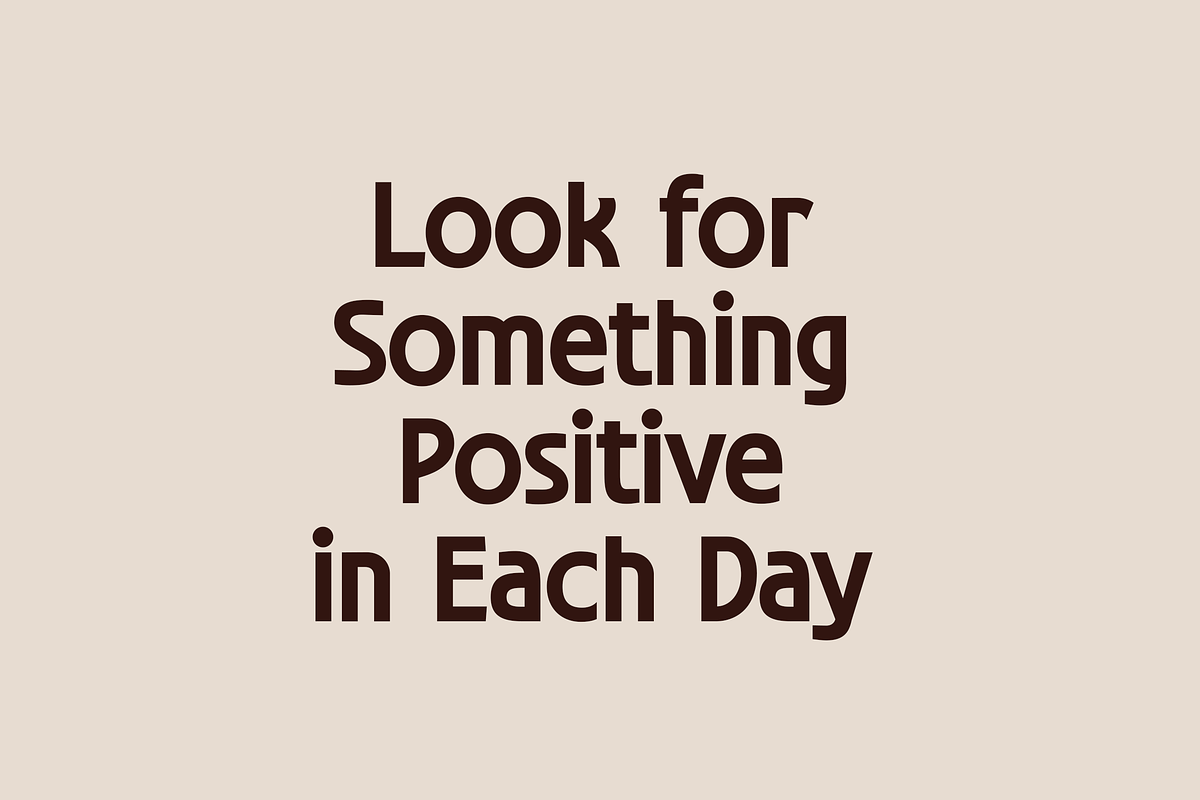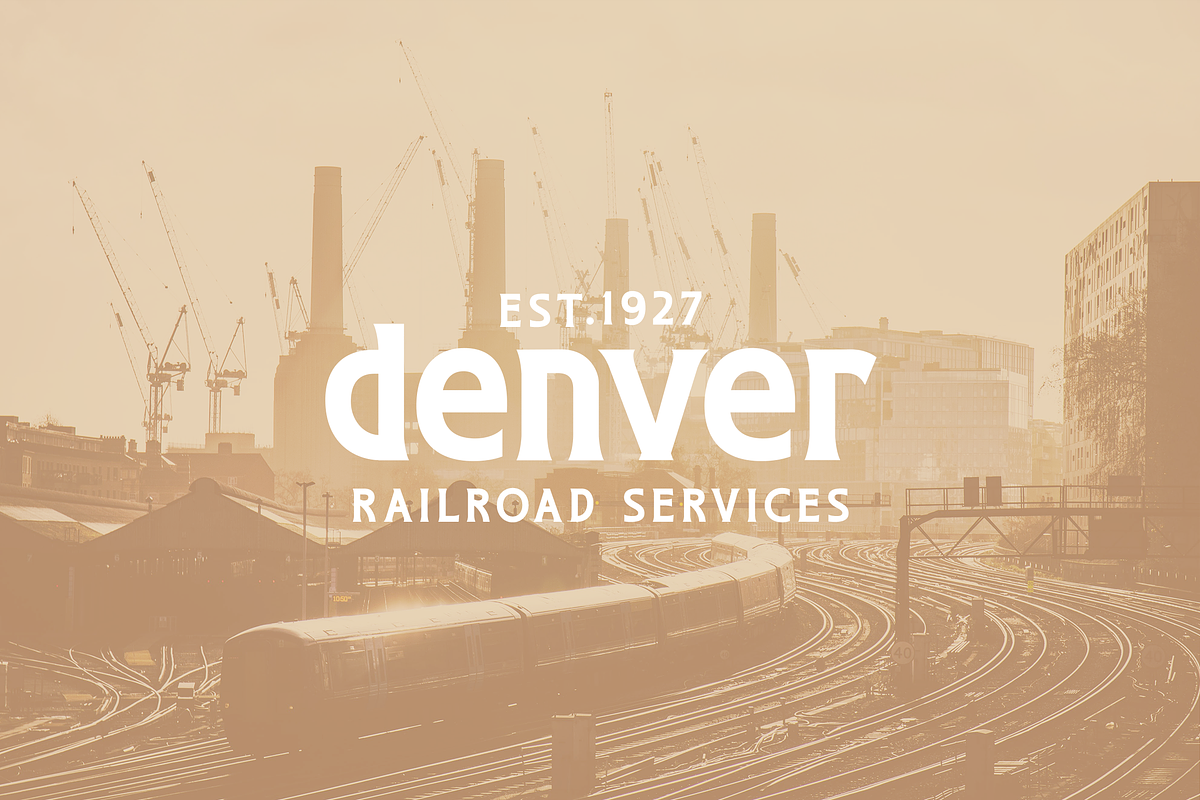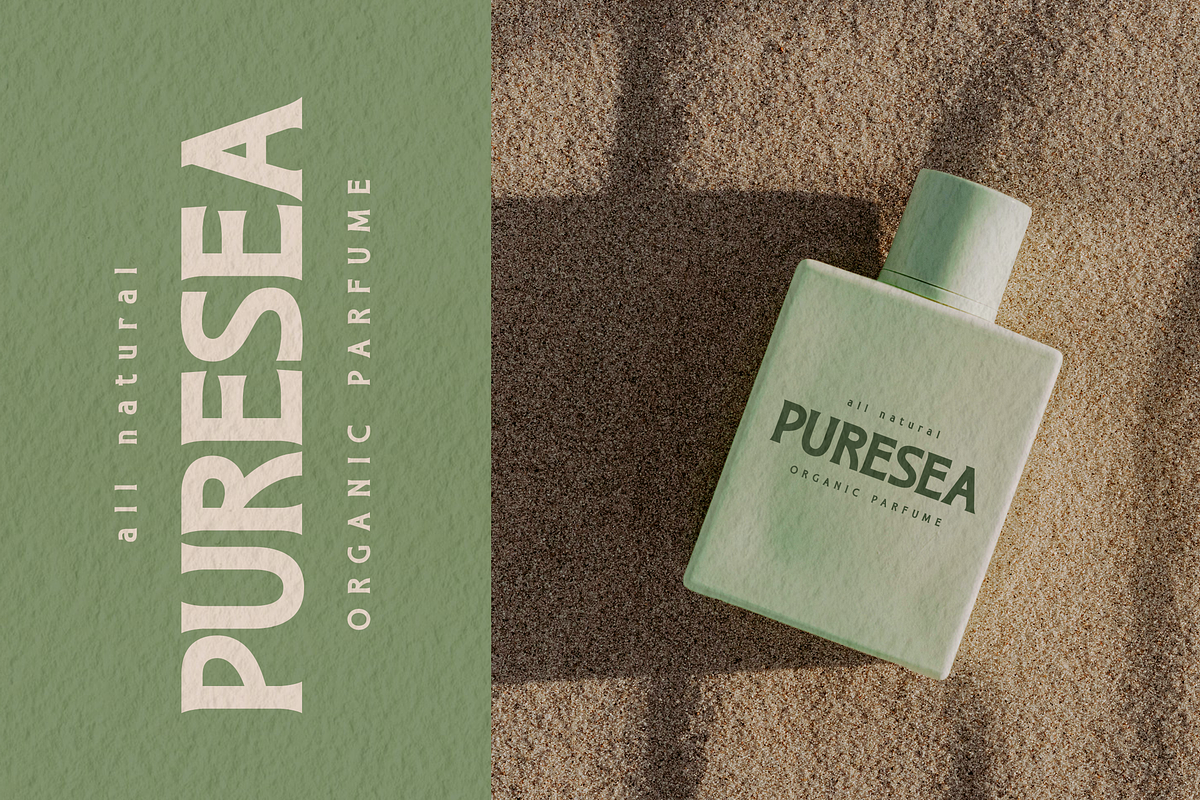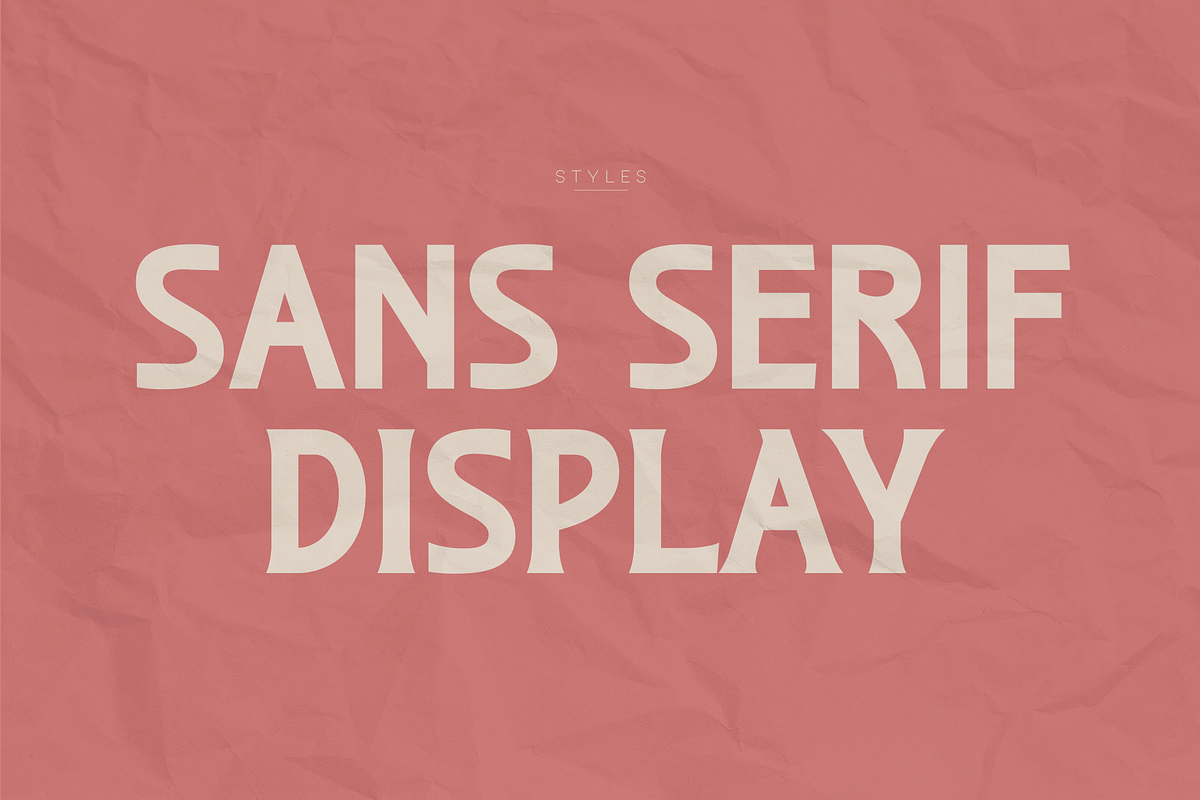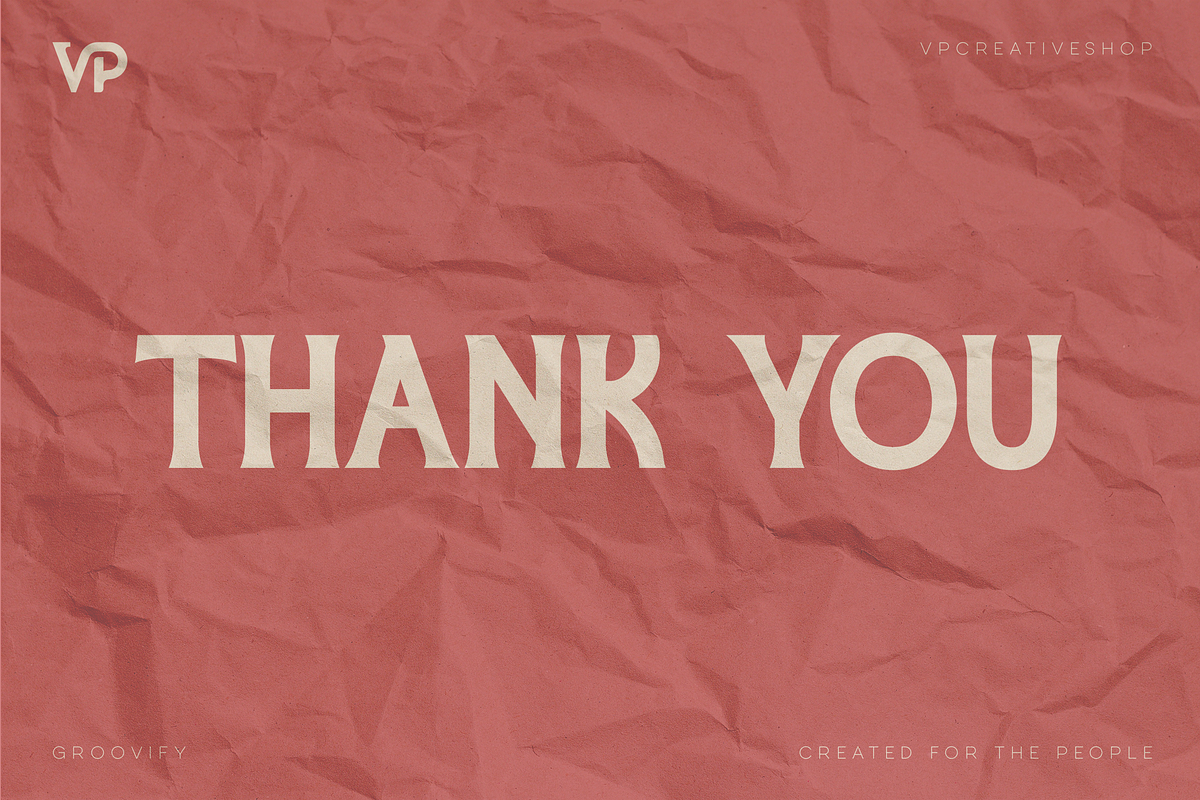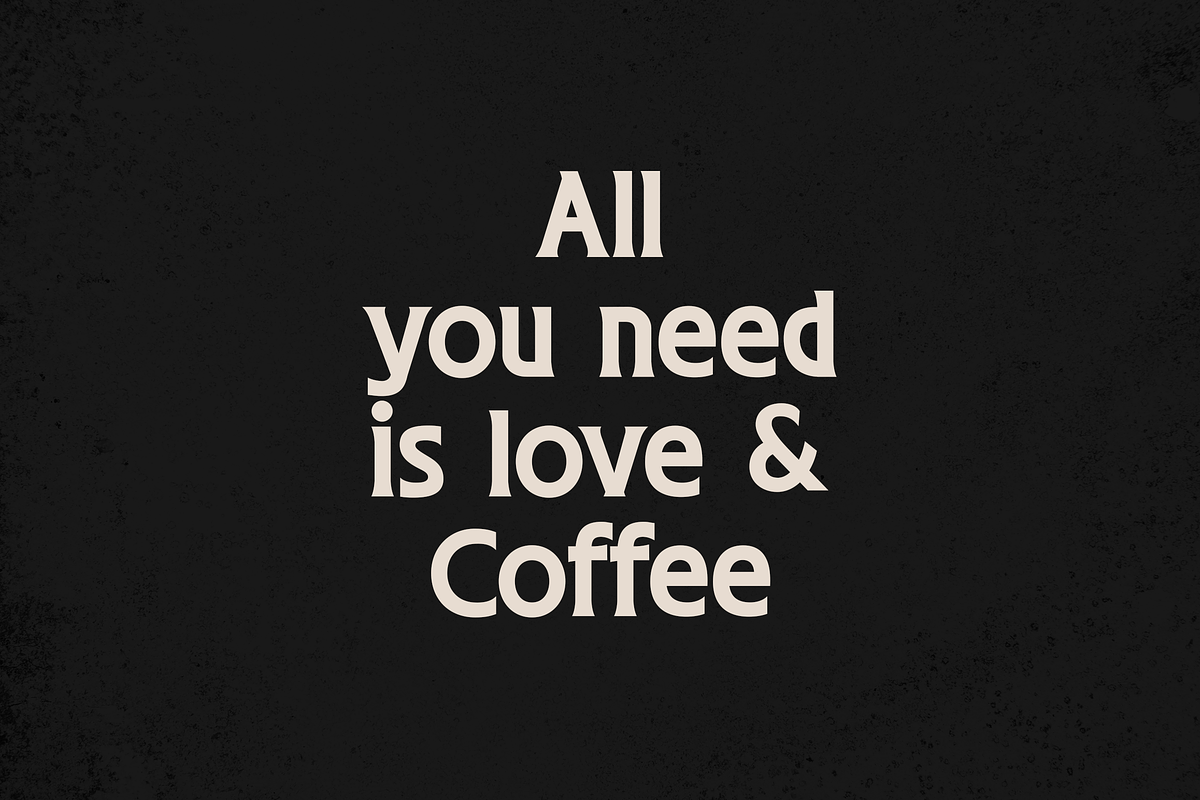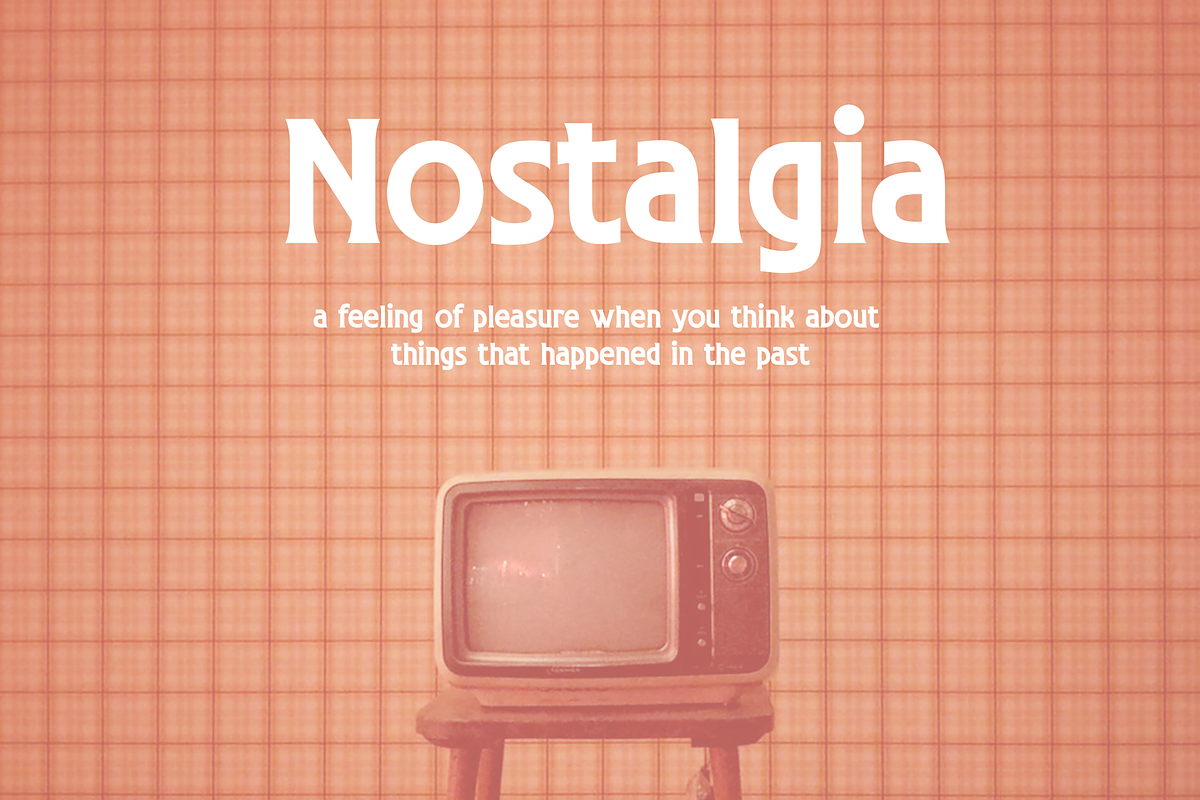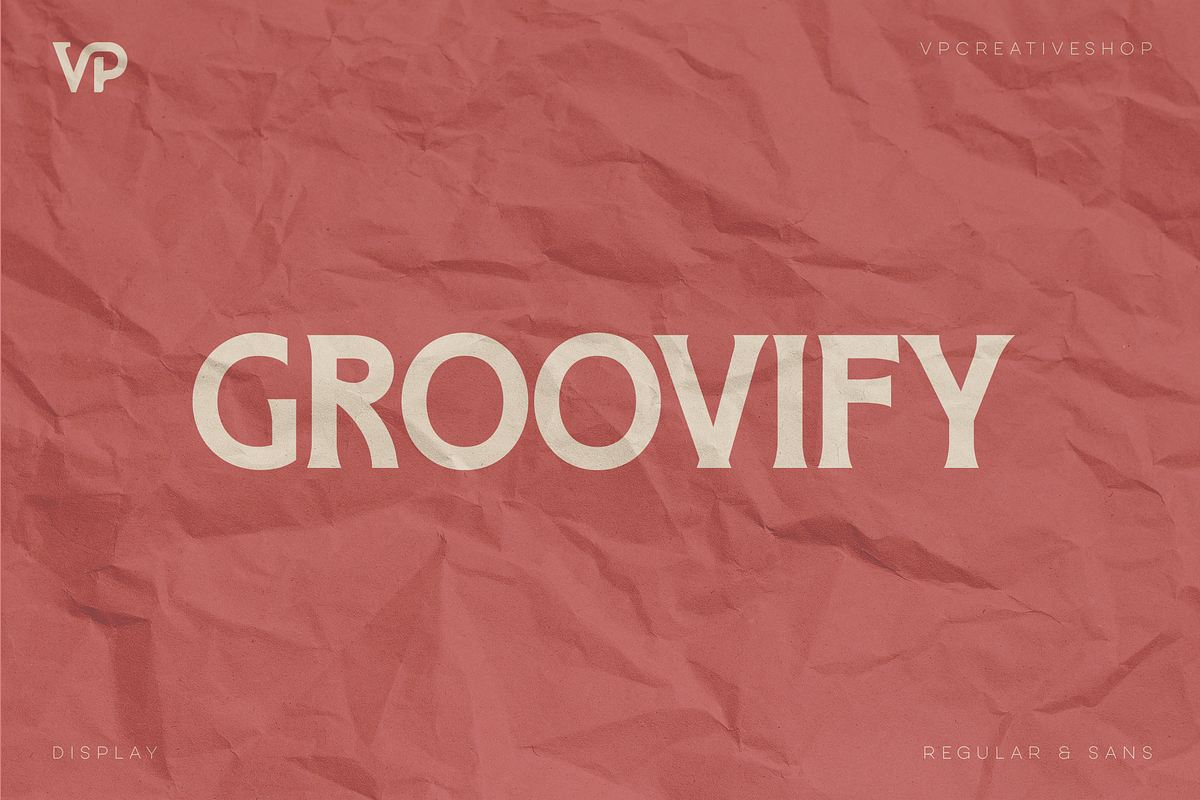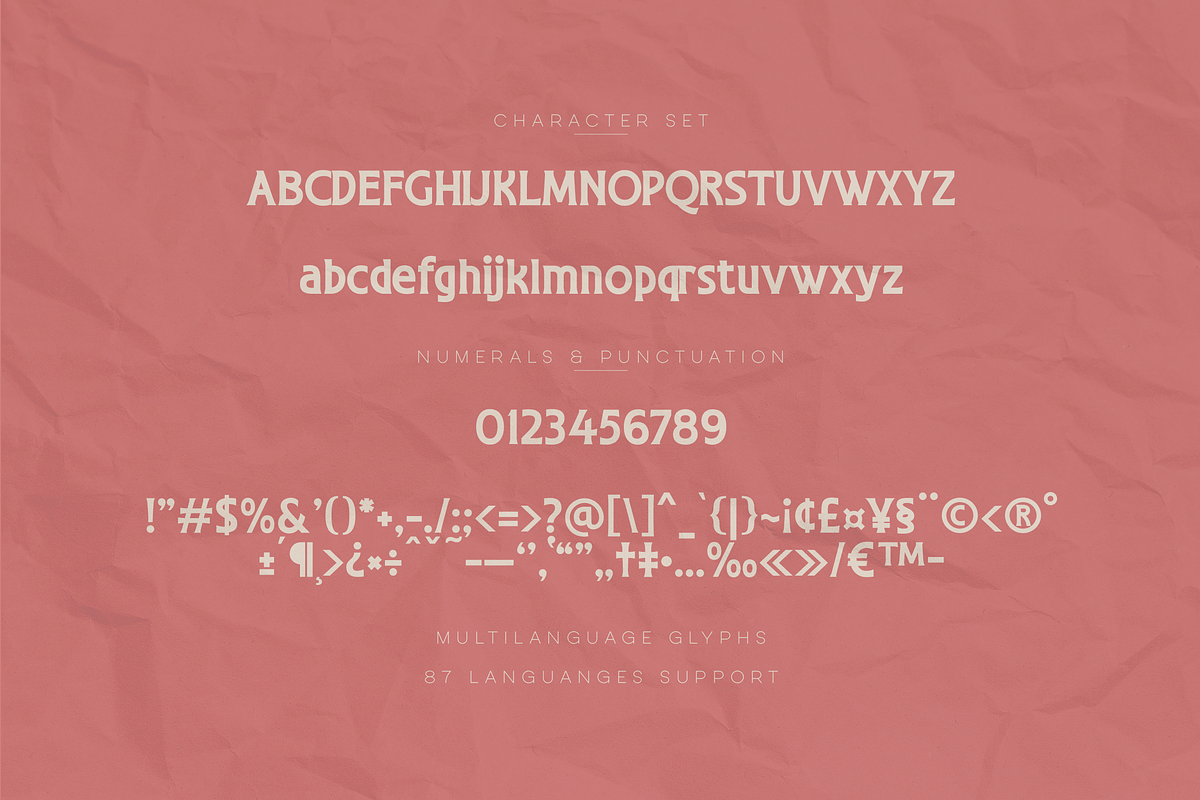
Groovify - retro display typeface
Introducing Groovify – a bold, retro display typeface that adds a touch of vintage charm to any project. Available in both display and sans serif versions, with italics for each, Groovify is designed for maximum readability and style. Supporting 87 languages, it's the perfect choice for global projects that need a standout, versatile font. Ideal for posters, branding, and creative designs, Groovify captures the spirit of the past with a modern twist. Transform your typography with Groovify's bold and eye-catching appeal.